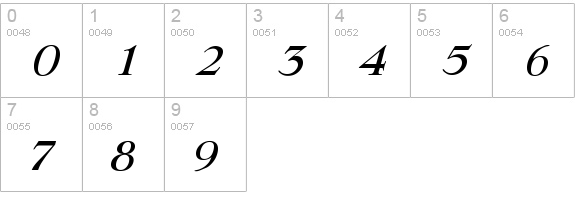
Lingwood-MediumIta is a stylish and versatile font that exudes elegance and sophistication. Its medium weight and italicized design make it perfect for adding a touch of flair to any project. Whether you're working on a professional presentation or a creative design, this font will surely make a statement. The best part? Lingwood-MediumIta is completely free to download at FontsMarket.com. This means you can enhance your work with this beautiful font without any cost. Don't miss out on the opportunity to elevate your designs with Lingwood-MediumIta - download it for free today at FontsMarket.com!